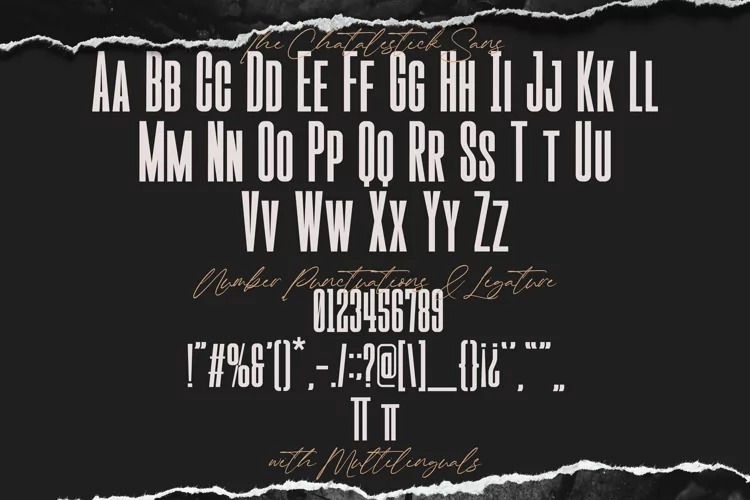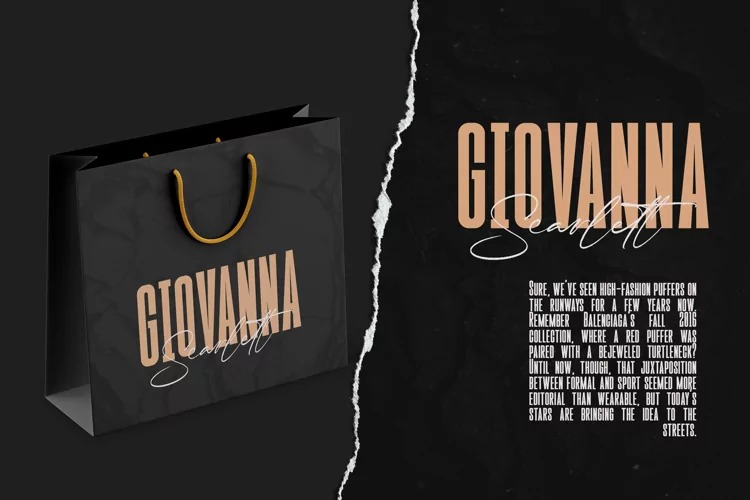
The Chatalestick Sans Font
This font is designed for maximum visual and emotional impact. It’s a bold sans-serif typeface with both uppercase and lowercase letters designed especially for headlines. The condensed Sans versions are solid and intentionally making strong statements even in small spaces. The Chatalestick also provides the script version which has Natural handwriting with Rough stroke and classy flow. It comes with various opentype 65 ligature to achieve the natural handwriting look.
The Chatalestick is perfect for homeware designs,branding projects, Logo, design, Quotes, Product packaging, Photography, Watermark.